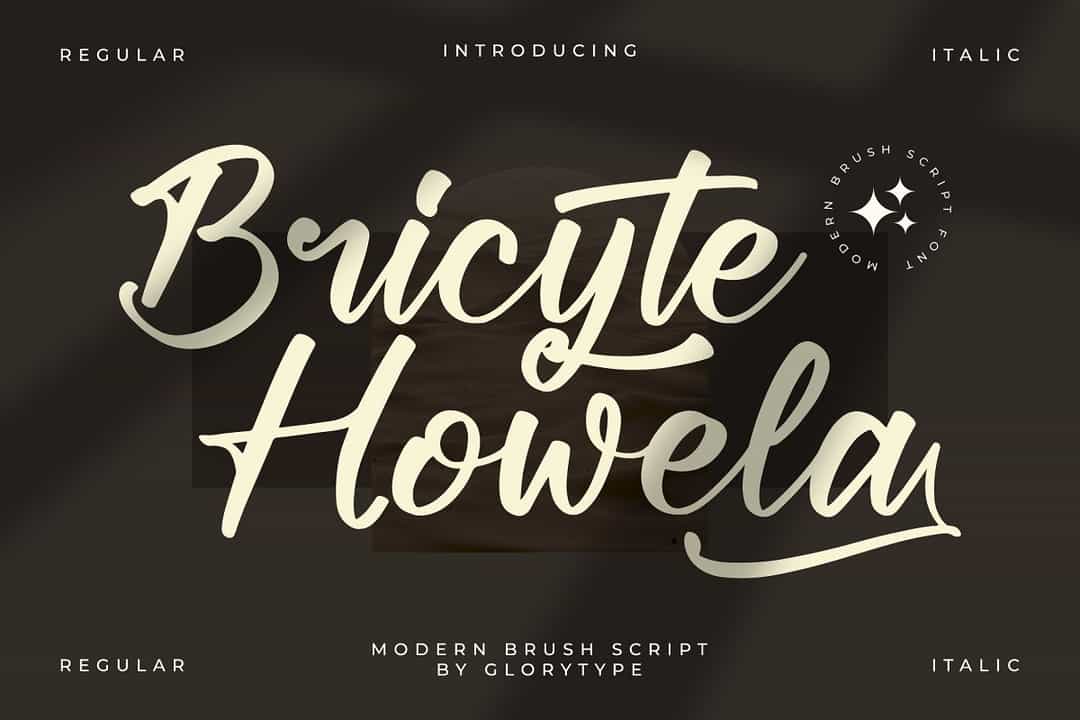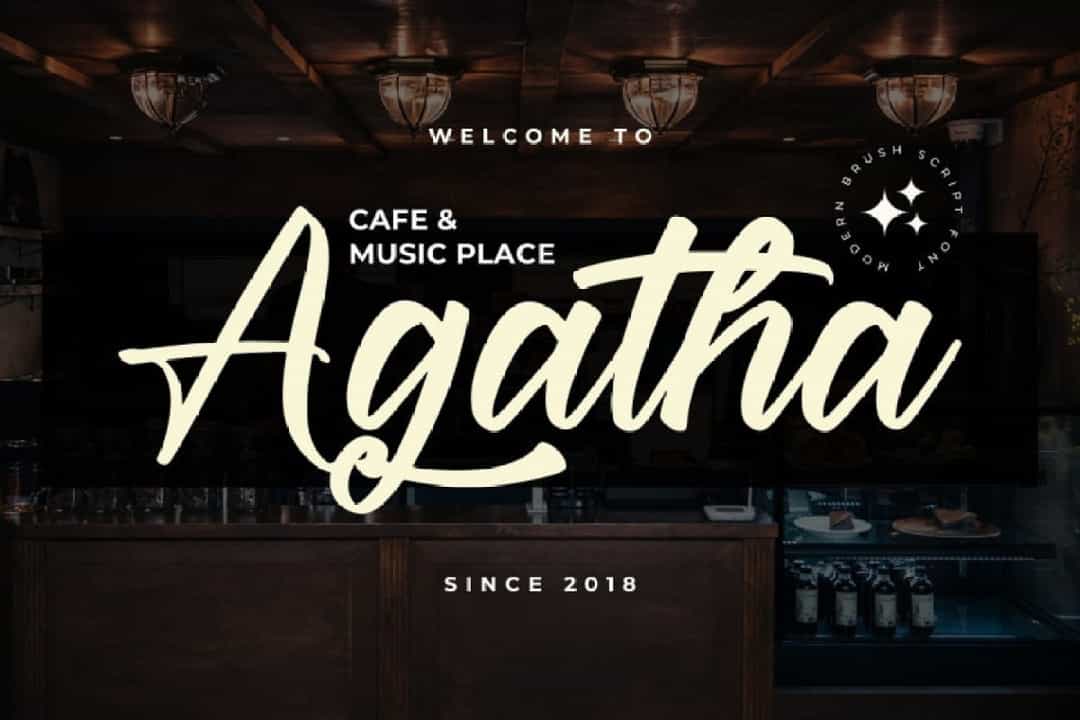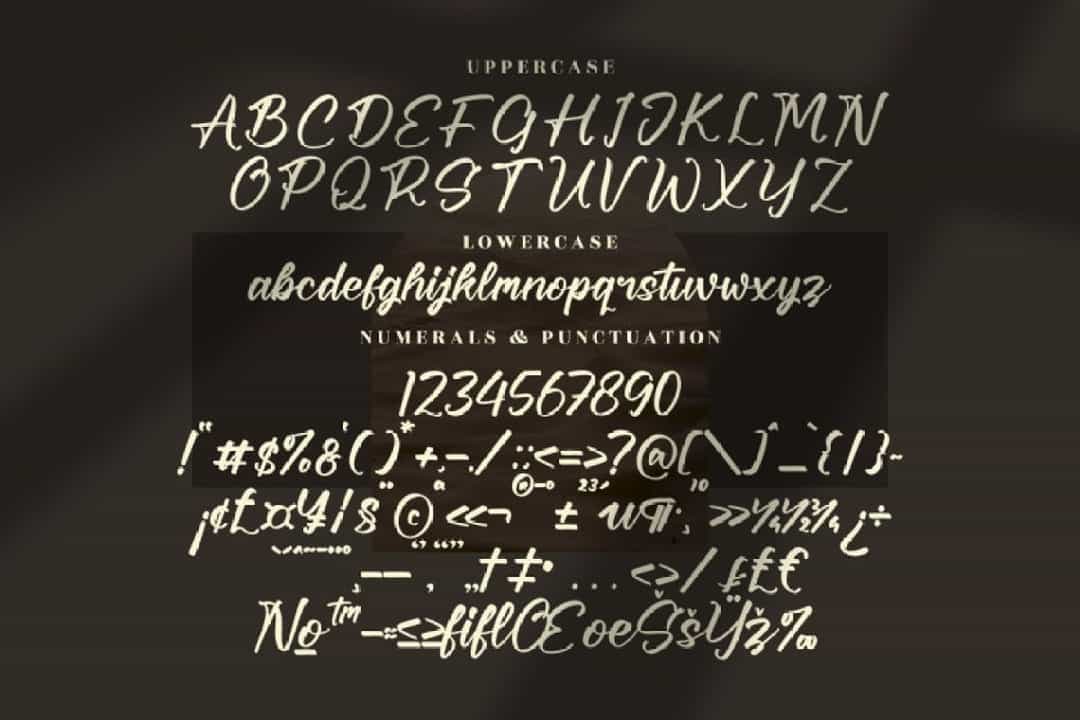
Bricyte Howela can be best described as an captivating brush script font. Featuring exquisite design and exceptional precision, this font makes an invaluable addition to any font collection – it will enhance any design project.